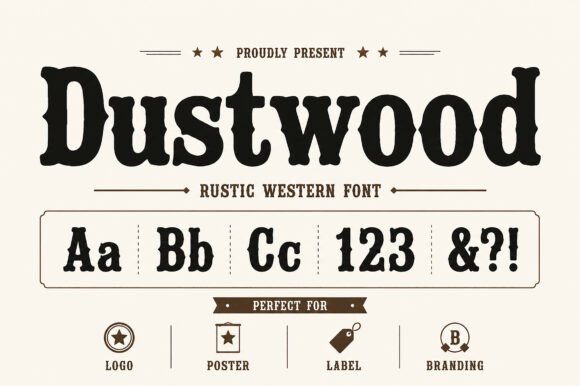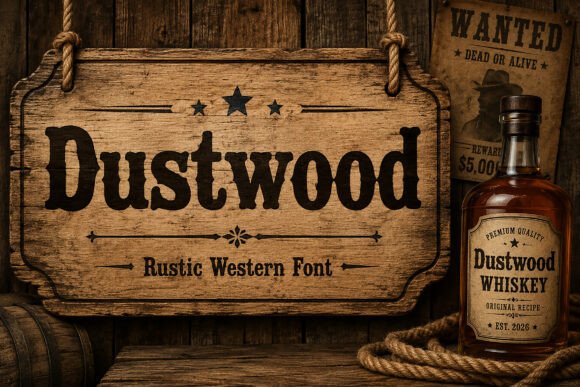
Introduction to Dustwood Font
Have you ever been stuck in a creative rut, scrolling through design resources in search of the perfect font to bring your project to life? I know I have. But then, it happens – a font that’s so unique, so full of character, that it makes everything else fade into the background. For me, that font is Dustwood Font.
With its robust and whimsical slab serif style, Dustwood Font exudes a bold, playful charm that’s impossible to ignore. Whether you’re designing a logo, poster, or product packaging, this versatile font is sure to draw the eye and add a touch of high-quality whimsy to your creative project. And the best part? It’s effortlessly legible, making it a valuable resource for designers of all levels.
From free download to professional design, Dustwood Font is a game-changer that’s sure to elevate your next creative project. With its transparent background and smooth, handcrafted vibe, it’s the perfect addition to any design portfolio.
Key Features of Dustwood Font
- High-Quality Design Resource: Dustwood Font is a beautifully crafted font that offers a unique, high-quality design resource for your creative project.
- Unique Characteristics: This font features a unique, hand-crafted design that adds a touch of elegance and sophistication to any creative project.
- Perfect for Creative Projects: Dustwood Font is ideal for use in various creative projects, including graphic design, typography, and branding.
Honest Review: Dustwood Font
I recently stumbled upon the Dustwood Font, a design resource that caught my attention due to its unique aesthetic. As a designer, I was excited to explore its features and see if it would be a valuable addition to my toolkit.
- ✨ The font’s distressed, hand-drawn feel adds a touch of personality to any creative project.
- ✨ The high quality of the font ensures that it will look great even at larger sizes, making it perfect for titles and headings.
- ⚠️ The font’s transparent background can make it difficult to use on busy or complex backgrounds.
- ⚠️ The limited character set may not be suitable for longer texts or documents.
Overall, I’m impressed with the Dustwood Font’s unique look and feel. While it may have some limitations, it’s a valuable resource for designers looking to add some personality to their creative projects. With a little experimentation and planning, it can be a valuable addition to any design arsenal.
The Dustwood Font is a high-quality design resource that offers a unique, rustic aesthetic perfect for creative projects. It’s available for free download and can be used with a transparent background, making it a versatile tool for designers.
Common Use Cases for Dustwood Font
The Dustwood Font is commonly used in design projects that require a rustic or vintage aesthetic, such as wedding invitations, menu boards, and packaging designs. It’s also a popular choice for designers who want to add a touch of whimsy and personality to their work.